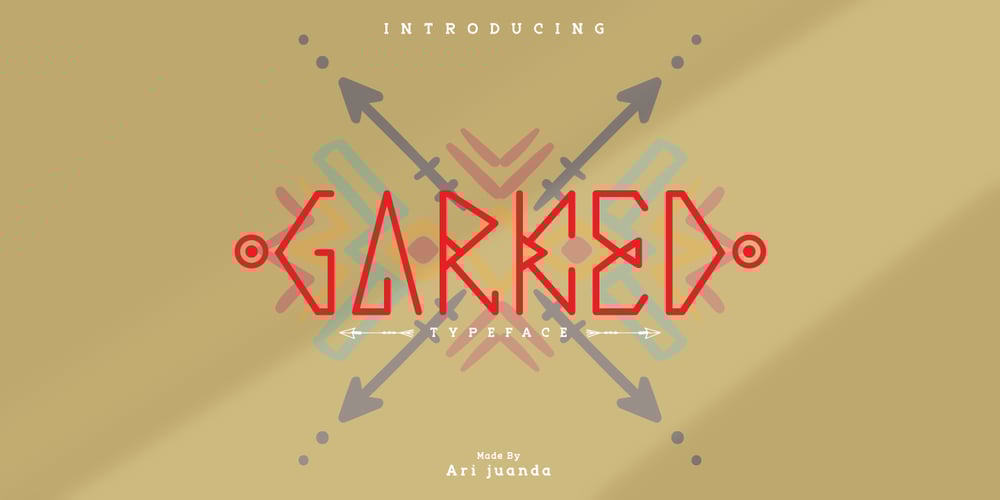
Garked
Garked font
Garked Font Family was designed by Ari Juanda and published by Linecreative. Garked contains 1 styles and family package options. Garked is a font typeface inspired by ancient nordic runes, you want to customize a logo, brand or other design with ethnic or tribal style, this font is perfect for your choice.What you get, you will get:1. Garked – Clean San serif font including Uppercase & Lowercase (ALL CAPS) characters,2. Numbers and Punctuation3. Support Multi language (Western Europe Latin)